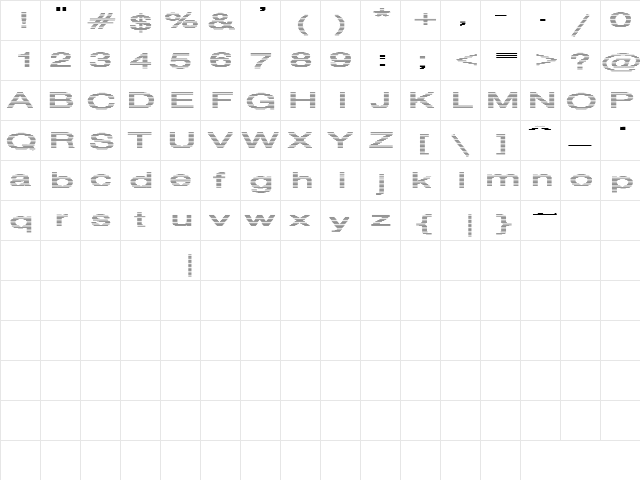
She's On Fire 2 Regular Font Preview
She's On Fire 2 Regular
She's On Fire 2 Regular Font Details
Design Context for She's On Fire 2 Typeface
She's On Fire 2 offers clean, dependable letterforms without strong stylistic allegiance, making it a practical choice for designers who need flexibility.